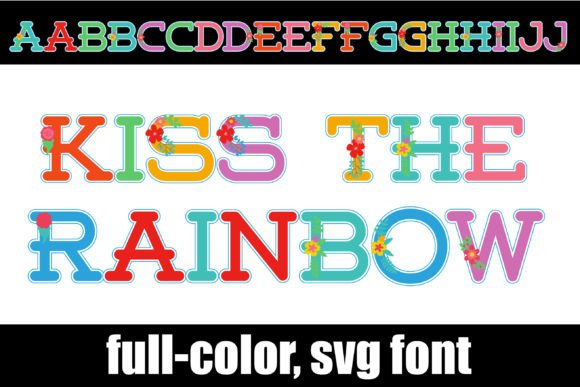
Step into a vibrant world of colors, where each letter dances with its own unique shade, and where your creativity knows no bounds. Introducing Kiss the Rainbow, the font that will add a burst of energy and personality to all your digital endeavors.
With its playful and diverse palette, Kiss the Rainbow is the perfect choice for those who dare to be different and embrace the extraordinary. Its hand-crafted characters, each adorned with a different color, bring a sense of individuality and flair to your designs, making them stand out from the ordinary.
Whether you're designing eye-catching social media posts, creating vibrant posters, or adding a touch of whimsy to your flyers, Kiss the Rainbow is your ultimate companion. Its versatility knows no limits, allowing you to weave your imagination into countless projects, both personal and professional.
Unleash the artist within and let your designs bloom with color. Kiss the Rainbow is more than just a font; it's an invitation to express yourself in a way that's uniquely yours. Embrace the magic of diversity and let your creativity shine through with every character you type.
So, dive into the rainbow of colors and let Kiss the Rainbow ignite your imagination. Make a statement, capture hearts, and leave a lasting impression with every design you create. The possibilities are endless, just like the colors of the rainbow.